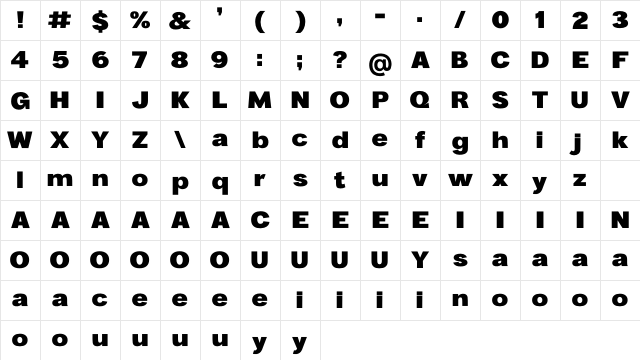
Complete Anderson Grotesk Black Regular glyph index. Displaying only characters natively supported by Anderson Grotesk Black Regular font.
Anderson Grotesk Black takes a clean, functional approach - its unadorned letterforms prioritise legibility and work reliably across screen and print environments.
Font Pairing: Works well alongside a characterful serif or display font that can carry the expressive load while Anderson Grotesk Black handles the functional copy.
Pro Tip: Use Anderson Grotesk Black for UI labels, navigation, and short-form body copy where clean legibility is the priority.